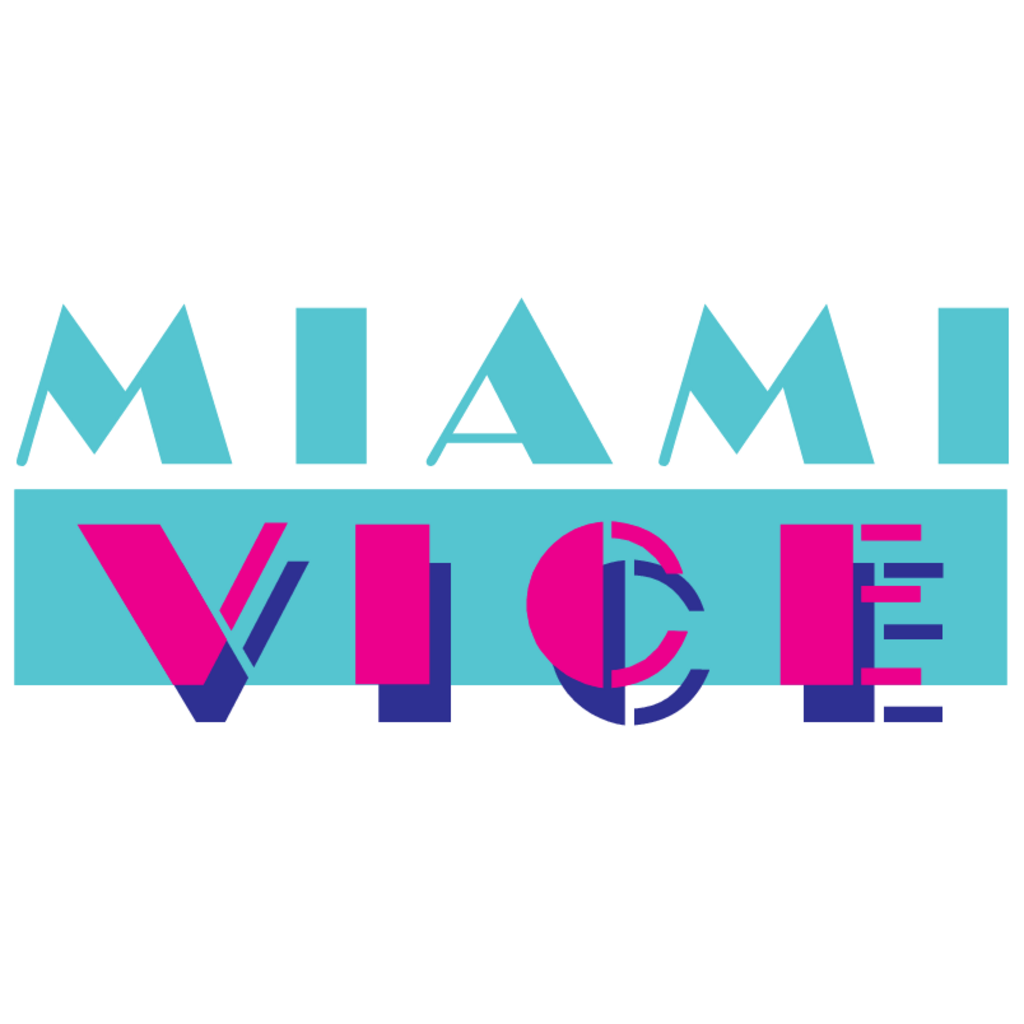
Font Miami Vice
Font Miami Vice - Web created in 1984 by jeffrey schreiber, the miami vice font is a modified version of the “itc benguiat” font. Broadway regular by an unknown designer is a font based on the title logo from the tv show. Web miami vice logo font. The miami vice font is an art deco style font that became popular after the miami vice tv. Fontspace.io provides designers with high. Web home » tv shows » miami vice.
The miami vice font is an art deco style font that became popular after the miami vice tv. Web miami vice logo font. Web created in 1984 by jeffrey schreiber, the miami vice font is a modified version of the “itc benguiat” font. Broadway regular by an unknown designer is a font based on the title logo from the tv show. Fontspace.io provides designers with high. Web home » tv shows » miami vice.
Web home » tv shows » miami vice. Broadway regular by an unknown designer is a font based on the title logo from the tv show. Web miami vice logo font. Web created in 1984 by jeffrey schreiber, the miami vice font is a modified version of the “itc benguiat” font. Fontspace.io provides designers with high. The miami vice font is an art deco style font that became popular after the miami vice tv.
Miami Vice Logo Font The show’s primary logo is called, by the show’s
Web home » tv shows » miami vice. Fontspace.io provides designers with high. Web miami vice logo font. Broadway regular by an unknown designer is a font based on the title logo from the tv show. The miami vice font is an art deco style font that became popular after the miami vice tv.
The miami vice font is an art deco style font that became popular after the miami vice tv. Web created in 1984 by jeffrey schreiber, the miami vice font is a modified version of the “itc benguiat” font. Fontspace.io provides designers with high. Broadway regular by an unknown designer is a font based on the title logo from the tv.
The miami vice font is an art deco style font that became popular after the miami vice tv. Broadway regular by an unknown designer is a font based on the title logo from the tv show. Fontspace.io provides designers with high. Web miami vice logo font. Web home » tv shows » miami vice.
Web created in 1984 by jeffrey schreiber, the miami vice font is a modified version of the “itc benguiat” font. Broadway regular by an unknown designer is a font based on the title logo from the tv show. Fontspace.io provides designers with high. Web home » tv shows » miami vice. The miami vice font is an art deco style.
Broadway regular by an unknown designer is a font based on the title logo from the tv show. Web home » tv shows » miami vice. The miami vice font is an art deco style font that became popular after the miami vice tv. Web miami vice logo font. Fontspace.io provides designers with high.
Miami Vice Font
Web miami vice logo font. Web home » tv shows » miami vice. Fontspace.io provides designers with high. The miami vice font is an art deco style font that became popular after the miami vice tv. Web created in 1984 by jeffrey schreiber, the miami vice font is a modified version of the “itc benguiat” font.
Web created in 1984 by jeffrey schreiber, the miami vice font is a modified version of the “itc benguiat” font. The miami vice font is an art deco style font that became popular after the miami vice tv. Web home » tv shows » miami vice. Broadway regular by an unknown designer is a font based on the title logo.
Miami Vice Font Free Download Fonts Empire
Broadway regular by an unknown designer is a font based on the title logo from the tv show. Fontspace.io provides designers with high. Web created in 1984 by jeffrey schreiber, the miami vice font is a modified version of the “itc benguiat” font. Web home » tv shows » miami vice. The miami vice font is an art deco style.
Miami Vice Font downafile
Web miami vice logo font. Web created in 1984 by jeffrey schreiber, the miami vice font is a modified version of the “itc benguiat” font. Fontspace.io provides designers with high. The miami vice font is an art deco style font that became popular after the miami vice tv. Web home » tv shows » miami vice.
Miami vice font conceptslasopa
The miami vice font is an art deco style font that became popular after the miami vice tv. Web home » tv shows » miami vice. Fontspace.io provides designers with high. Web miami vice logo font. Web created in 1984 by jeffrey schreiber, the miami vice font is a modified version of the “itc benguiat” font.
Broadway regular by an unknown designer is a font based on the title logo from the tv show. Web miami vice logo font. Web created in 1984 by jeffrey schreiber, the miami vice font is a modified version of the “itc benguiat” font. The miami vice font is an art deco style font that became popular after the miami vice tv.